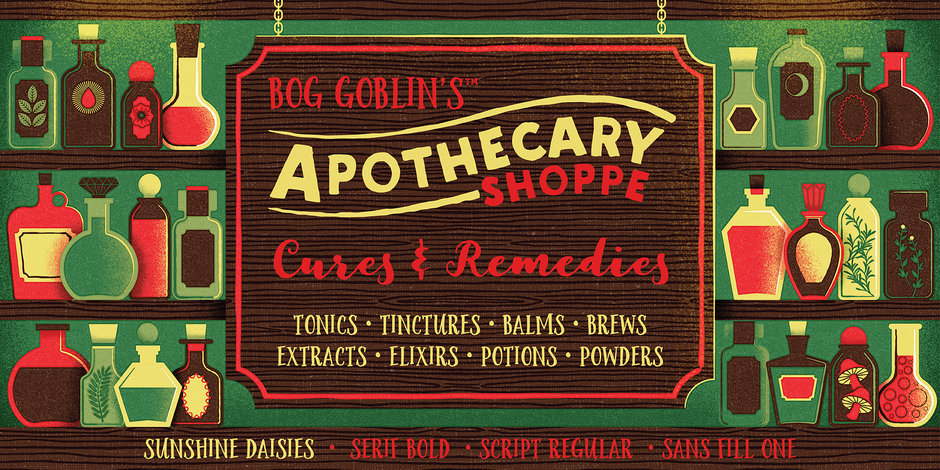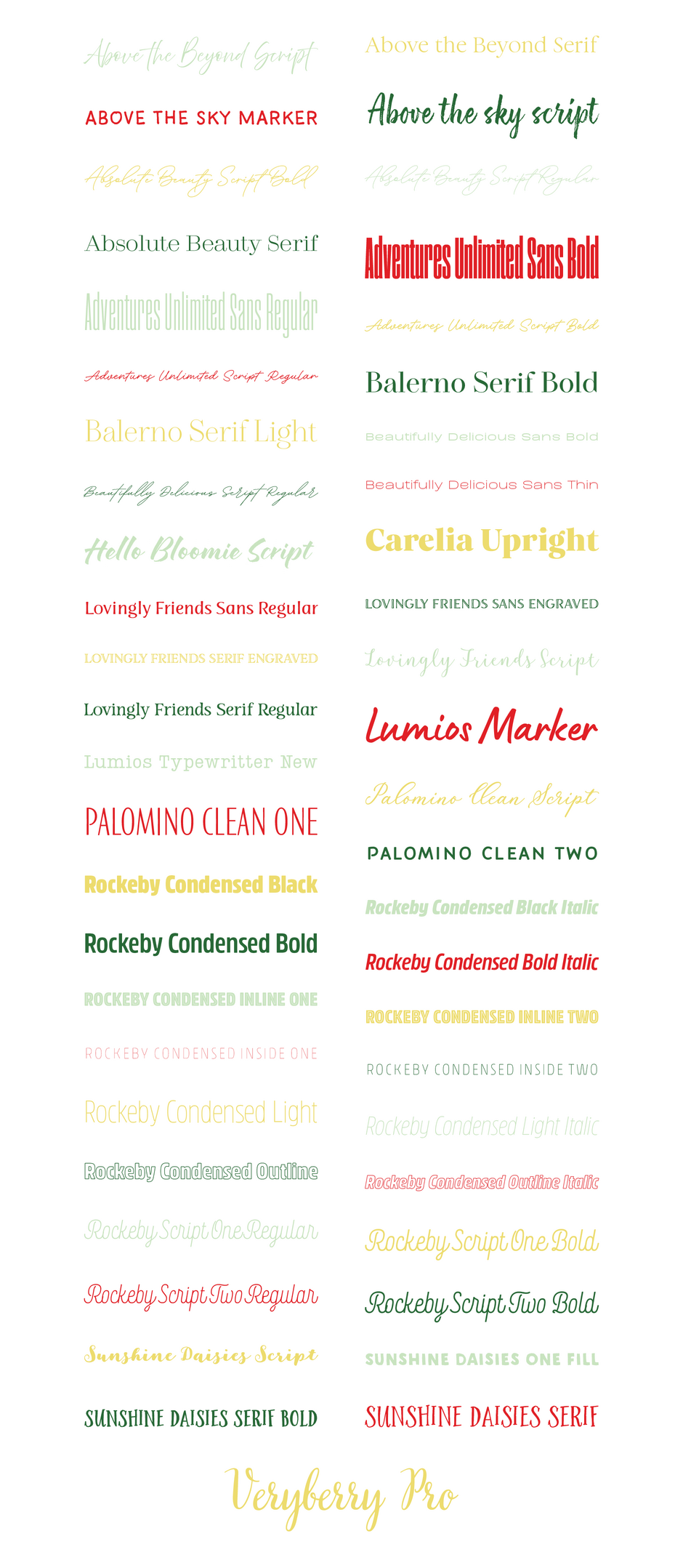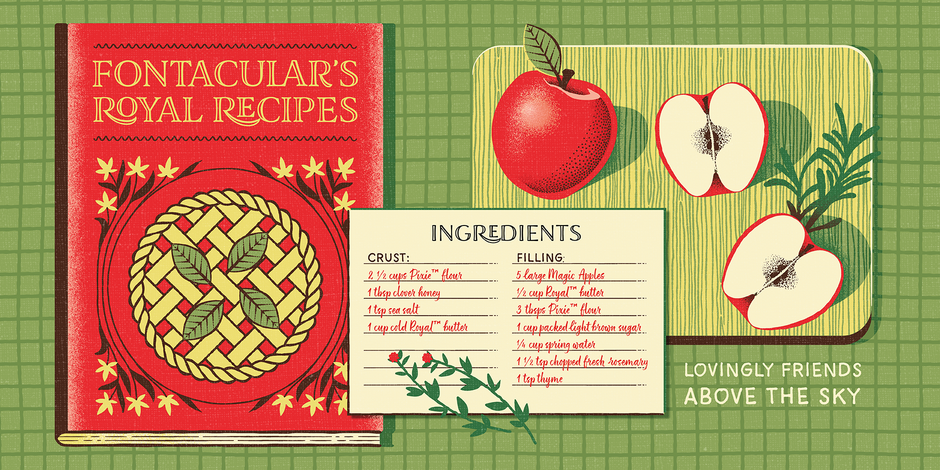
My Creative Land Bestsellers Bundle
Introducing My Creative Land Bestsellers bundle, a collection of 49 fonts - a mix of hand written and classic typefaces; sans serif, serif and scripts. All of these can be mixed and matched to find the best design solution. They are ideal to use for all sort of design projects and are perfectly suited for branding, advertising, packaging, social media and web design. These fonts will help to create a modern and sophisticated look that your customers would love.